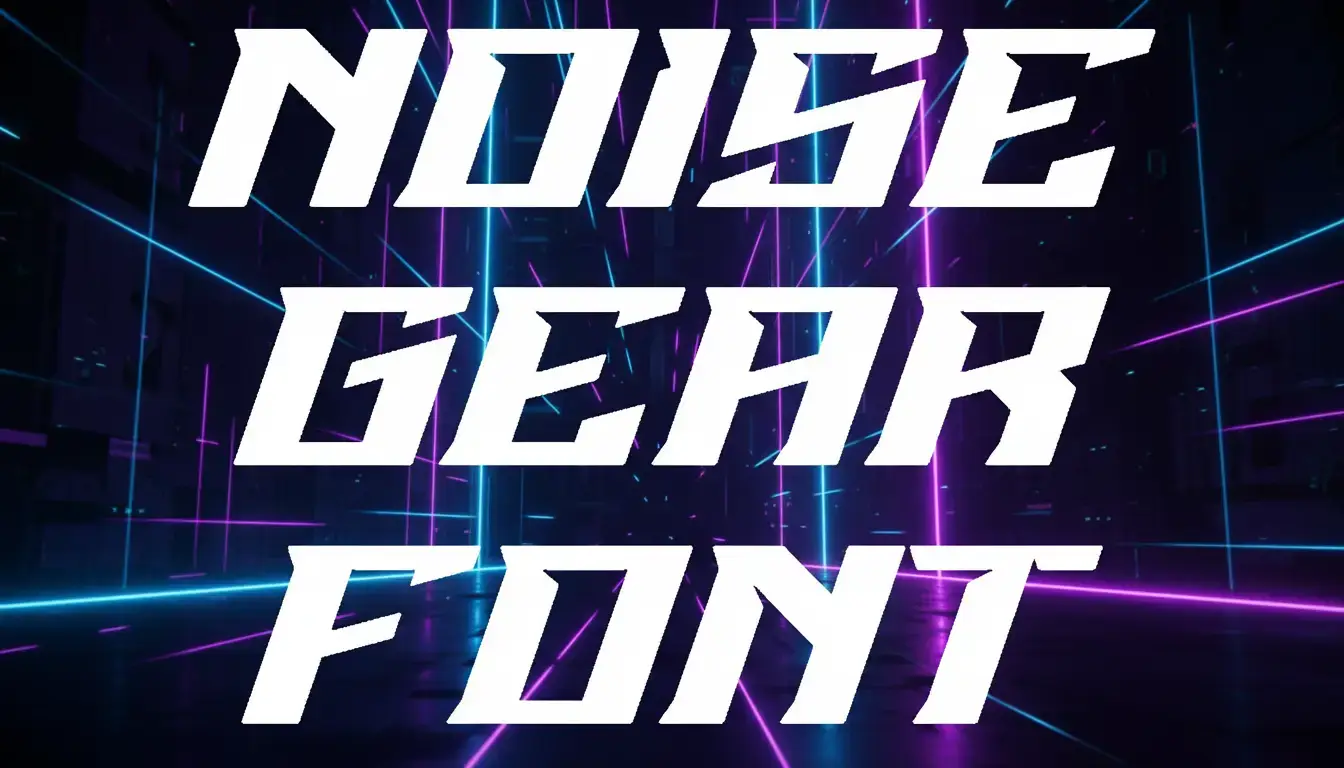
Noise Gear Font
Noise Gear Font Preview
Noise Gear
Noise Gear is a techno font created by Asep Saefulloh and released through Figuree Studio. Its angular, engineered shapes look right at home on screens and tech products. You can download it for free and test it with your own words in the preview above.
What You Can Type With Noise Gear
You get every letter from A to Z in both cases and all the numbers from 0 to 9, which means Noise Gear can handle full sentences, dates and prices. Everyday marks like &, !, ? and @ are there too. Thanks to its accented letters, it also works for Spanish, French, German, Portuguese and Italian, not just English.
Where Noise Gear Works Best
Designers usually reach for fonts like Noise Gear when they're making gaming logos, tech branding and futuristic posters. Try it on a dark background with a bright accent color for a sharp, modern look.
Does Noise Gear support accented letters?
Yes. Noise Gear includes the accented letters needed for Spanish, French, German, Portuguese and Italian, so it works for more than just English.
What fonts pair well with Noise Gear?
A simple sans serif like Roboto keeps longer text easy to read next to it.